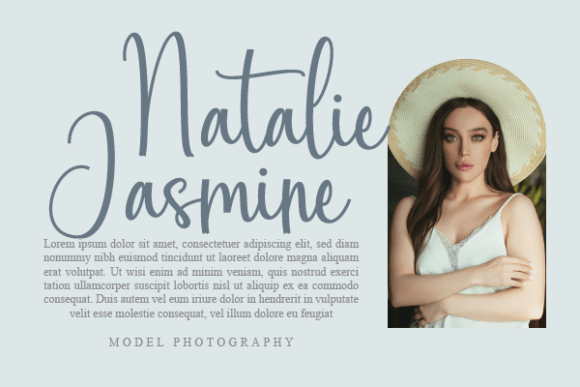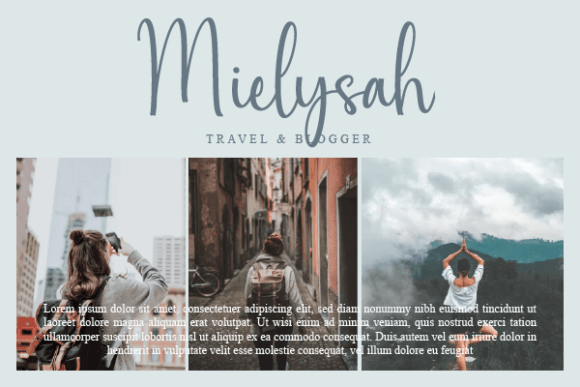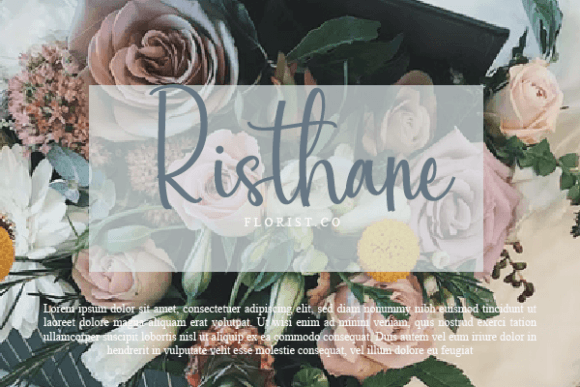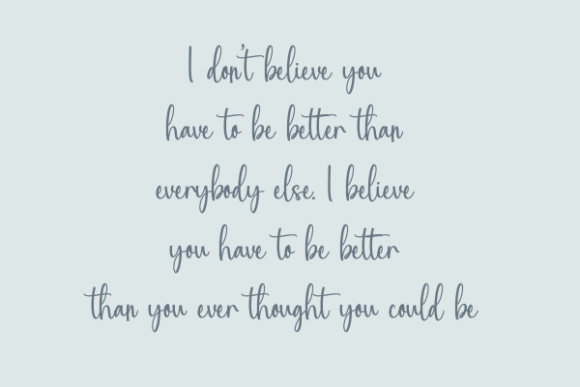
Molyani Signature Font
About Molyani Signature Font
“Molyani Signature” is a dazzling script font that adds a touch of elegance and sophistication to your projects. Meticulously crafted and highly detailed, this font is a valuable asset to your font library, promising to enhance any creation with its unique and captivating style.
The dazzling script style of “Molyani Signature” makes it a versatile choice for a variety of topics and design applications. Whether you’re working on branding materials, invitations, social media graphics, or any other creative project, this font has the potential to elevate your designs and make them truly stand out.
The neat craftsmanship and attention to detail in “Molyani Signature” contribute to its overall appeal. The script font is not only visually striking but also carefully designed to ensure clarity and readability, making it suitable for a range of design purposes.
Consider incorporating “Molyani Signature” into your projects when you want to add a touch of glamour and sophistication. Whether it’s a logo, a printed quote, or any other design element, this font brings a level of elegance that can make your creations visually stunning.
In essence, “Molyani Signature” is more than just a font; it’s a design tool that can enhance the overall aesthetic of your creations. Its dazzling script style and meticulous detailing make it a standout choice for those seeking a font that exudes elegance and refinement.